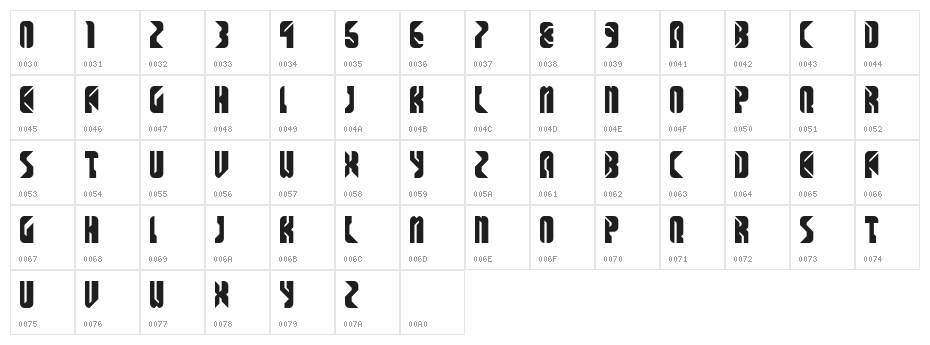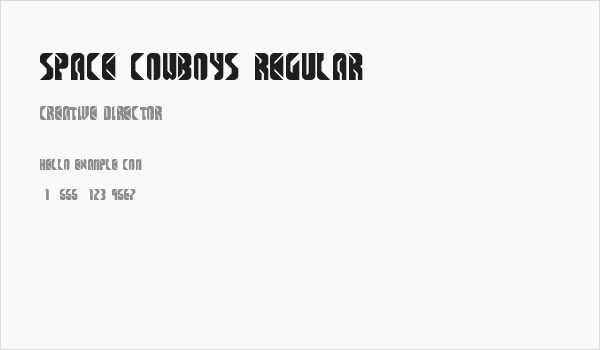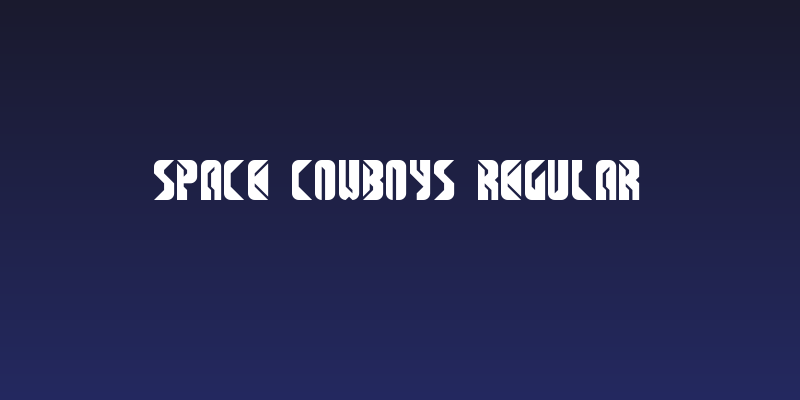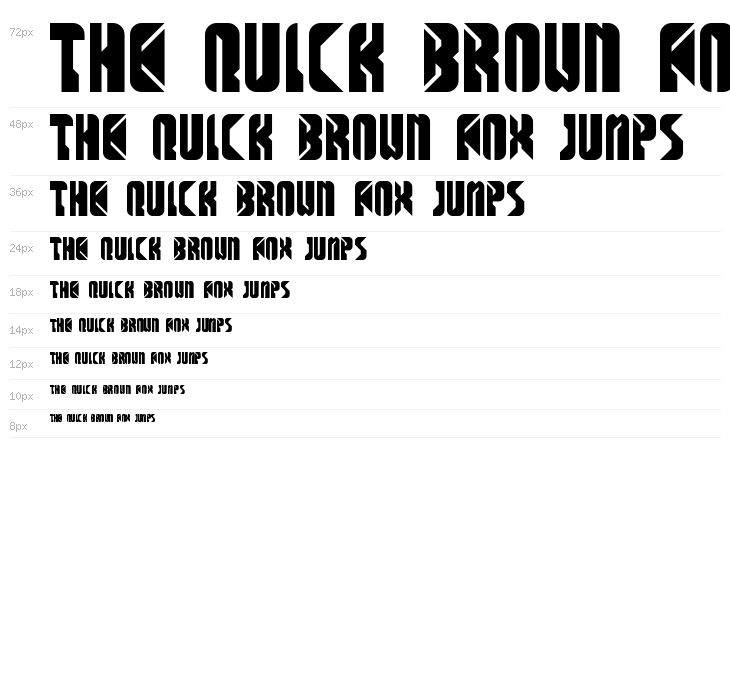
SPACE COWBOYS Regular Font
SPACE COWBOYS Regular Description
This font features a bold, futuristic design with sharp, angular edges and a distinct geometric style. The characters are crafted with a unique blend of straight lines and pointed corners, creating a dynamic and eye-catching appearance. The uppercase and lowercase letters maintain a consistent style, with a strong emphasis on symmetry and balance. The numbers and special characters follow the same design principles, ensuring uniformity across the entire typeface. This font is ideal for projects that require a modern and edgy look, such as sci-fi themed designs, technology branding, or video game titles.
Proposed ProjectsIdeal for sci-fi themed designs, technology branding, or video game titles.